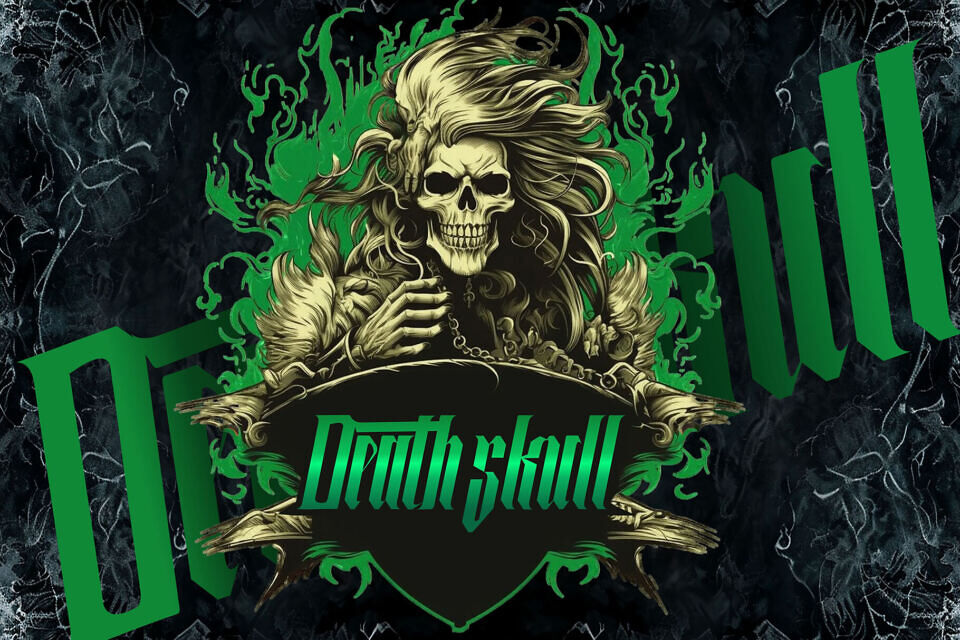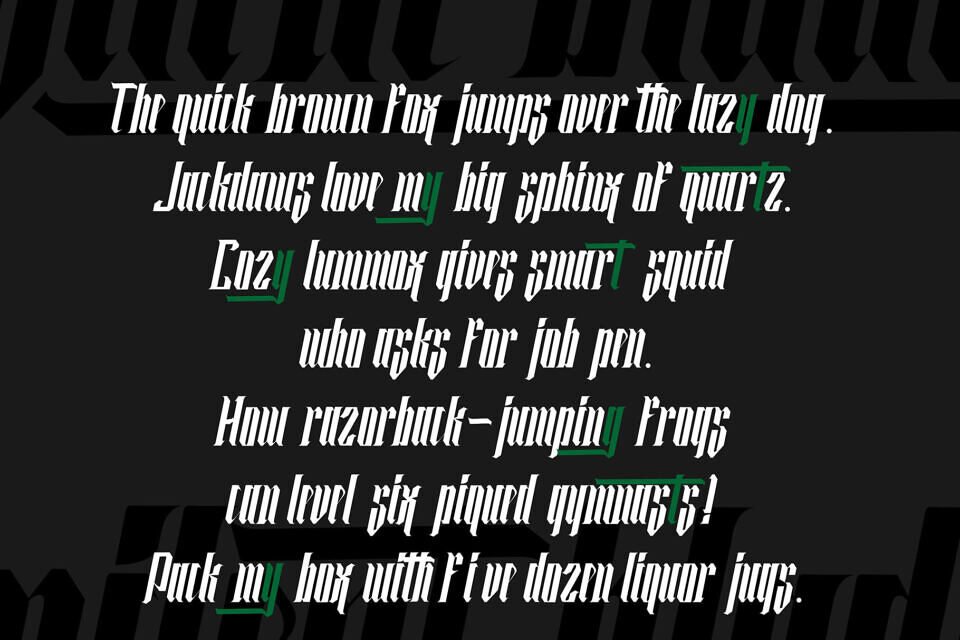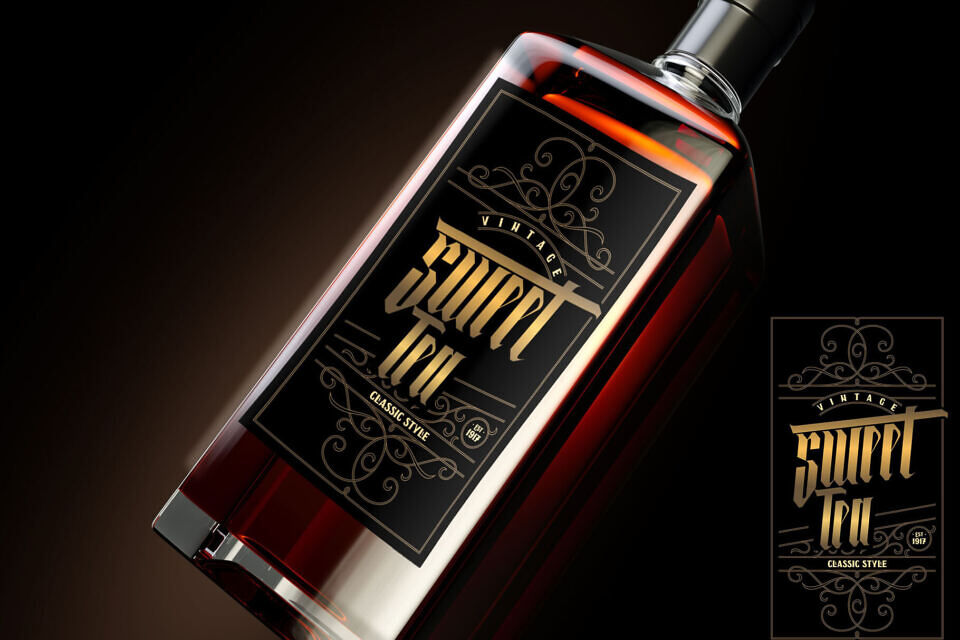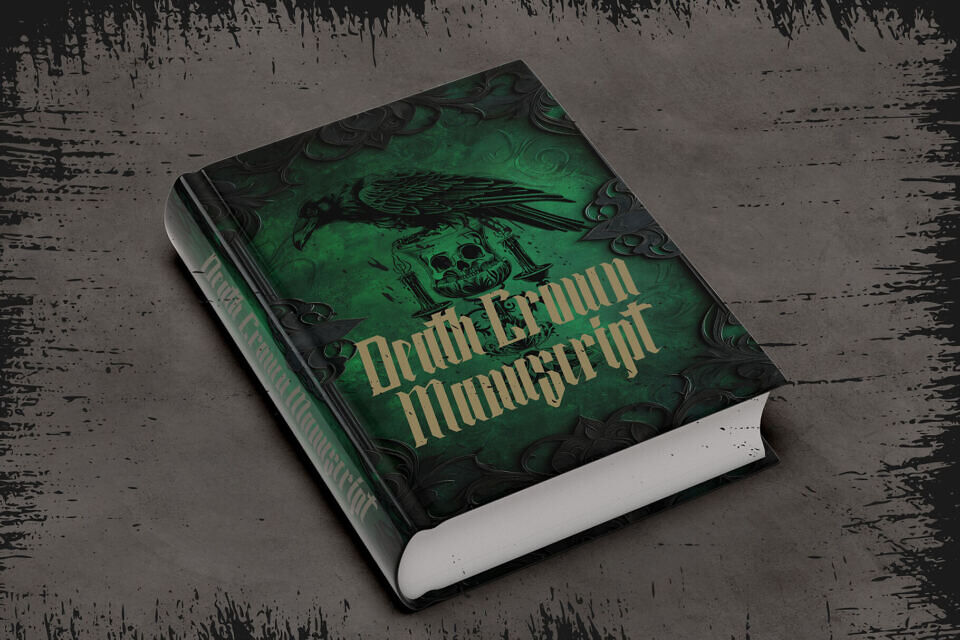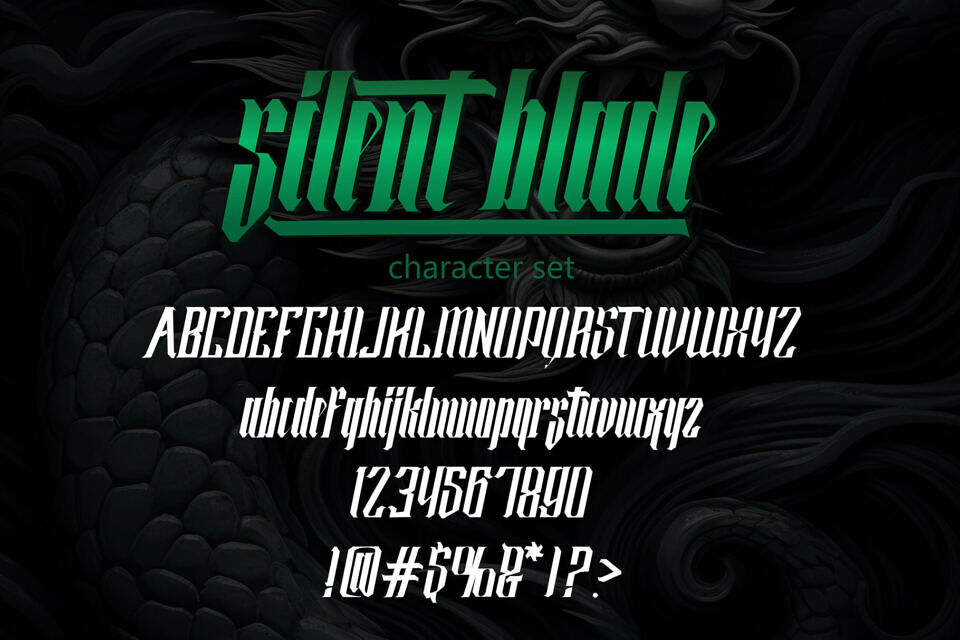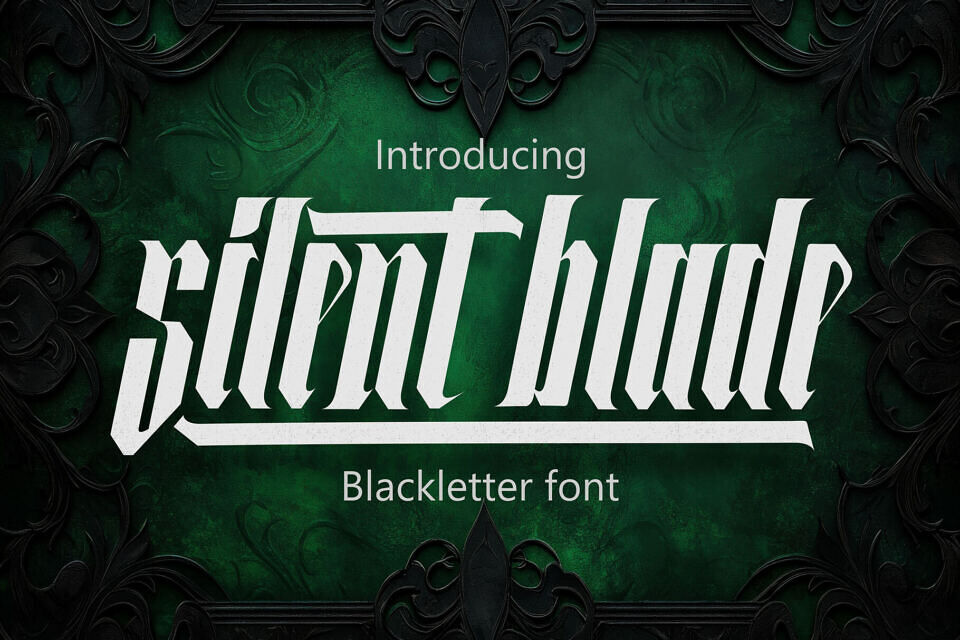
Silent Blade Font
Introducing Silent Blade, a contemporary blackletter typeface steeped in medieval traditions yet carved with a bold, modern vibe. It traces its roots back to classic gothic scripts, reconceptualized for the digital era, producing a prominent visual aura, befitting of branding, apparel, editorial designs, and poster art. Each glyph in Silent Blade has been crafted meticulously, resulting in tall, angular, and assertive characters.
The vertical lines are reminiscent of slashes from a blade, subtly flared and dynamic, bestowing each letter with fluidity and finesse. Whether you’re aiming to capture traditional gothic essence or veer towards a stylized, innovative direction, Silent Blade’s alternates provide compositional flexibility. Ideal applications range from heavy metal and gothic branding, album art, tattoos, medieval-themed events, merchandise, fantasy literature and game titles, to high-contrast editorial designs.